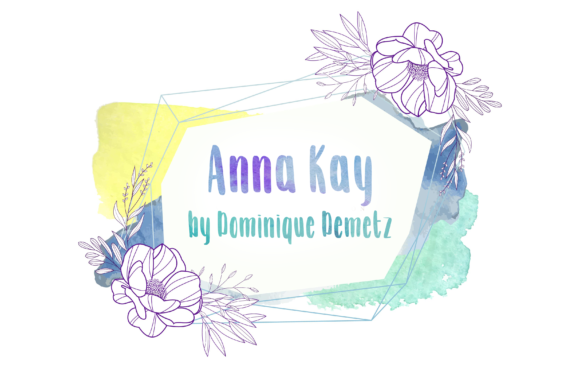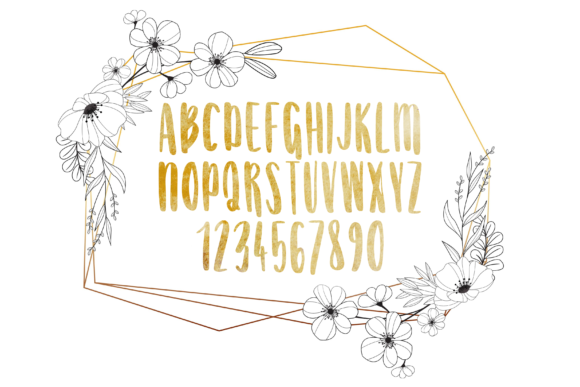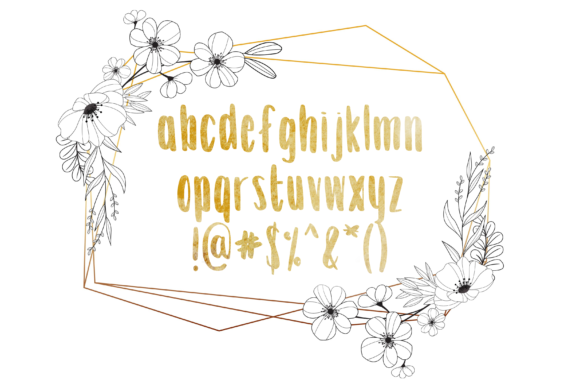
HomeScript FontsAnna Kay Font Script Fonts Anna Kay Font FacebookXPinterestWhatsApp Anna Kay Font Poster 2 Anna Kay Font Poster 3 About Anna Kay Font The Anna Kay is an amazing handwritten font. It has a striking look which will make any design stand out. DOWNLOAD ON CREATIVE FABRICAThis font is sold and delivered by Creative Fabrica. Font Canyon may earn a commission if you buy through this link. People also explored Nayla Font Leibra Duo Font Sands Tropical Duo Font Billions Gates Font Dot Font Sothing Font Stone Masher Font Quicken Font Zapan Script Font 451 0 TagsAnna Kay Font Previous articleVictoria FontNext articleForever Together Duo Font LEAVE A REPLY Cancel reply Comment: Please enter your comment! Name:* Please enter your name here Email:* You have entered an incorrect email address! Please enter your email address here Website: Save my name, email, and website in this browser for the next time I comment. Personal Use Free Amellis Path Personal Use Free Read more about this font Latifah Personal Use Free Read more about this font Zephan Personal Use Free Read more about this font Lover Loves Personal Use Free Read more about this font BLOG 5 Fonts That Will Dominate Design Trends in 2026 5 Fonts for 2026 That Will Dominate Design Trends Typography plays a critical role in visual communication, and as we look ahead to 2026, it’s... Modern Sans-Serif Fonts That Brands Love in 2025 Transform Your Website: Elevate Your Typography with 7 Best Web Font Generators How to Cut Any Font on Cricut: Convert a Font to SVG (Free)